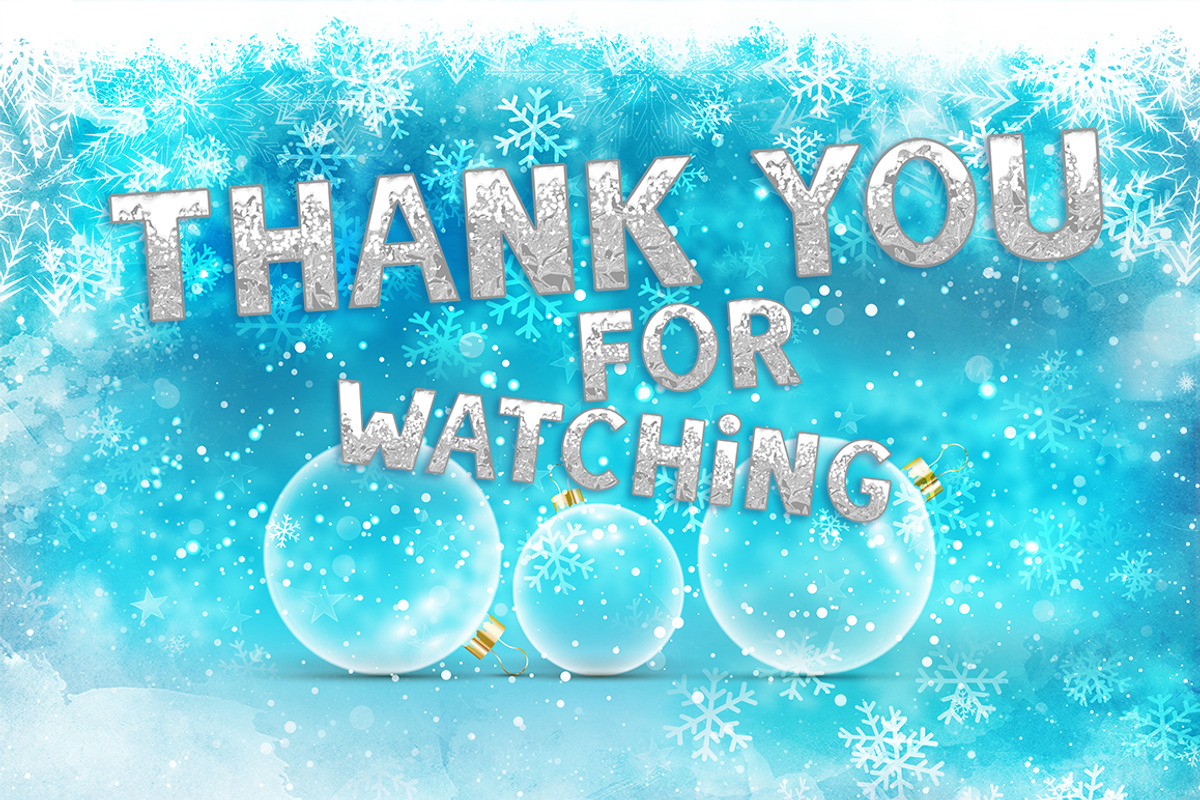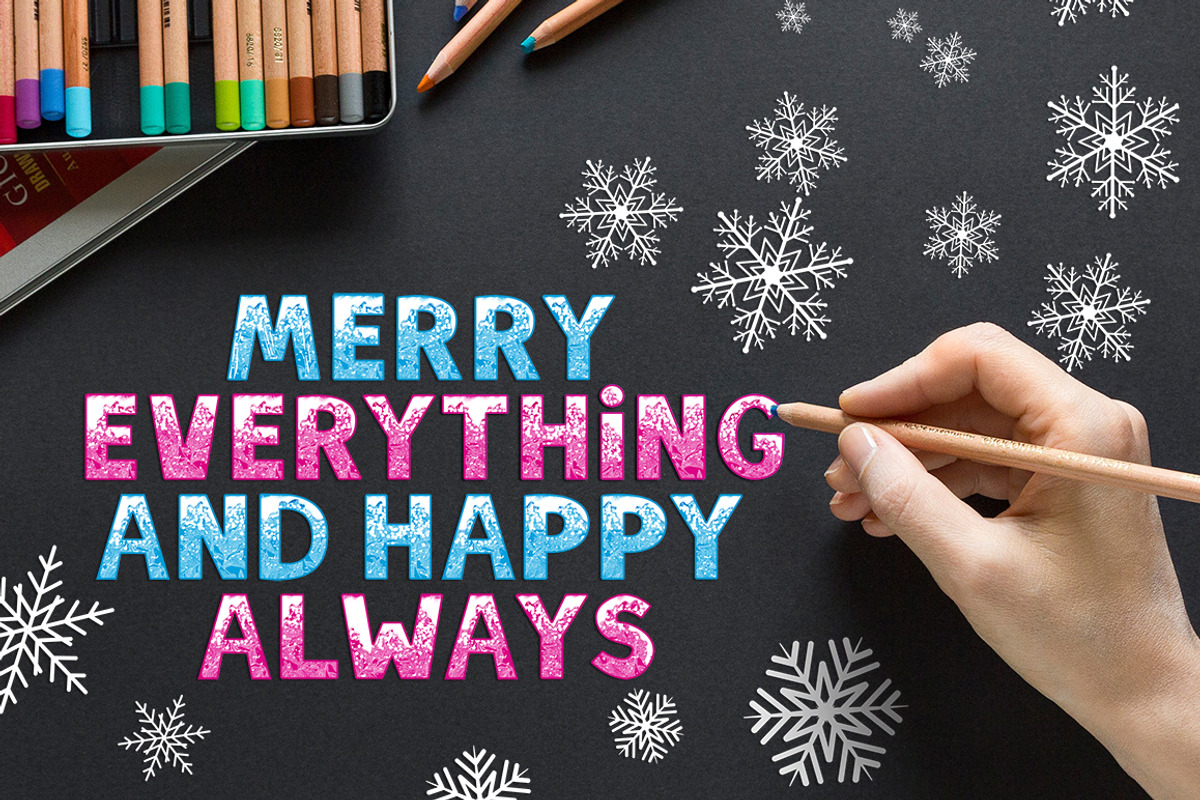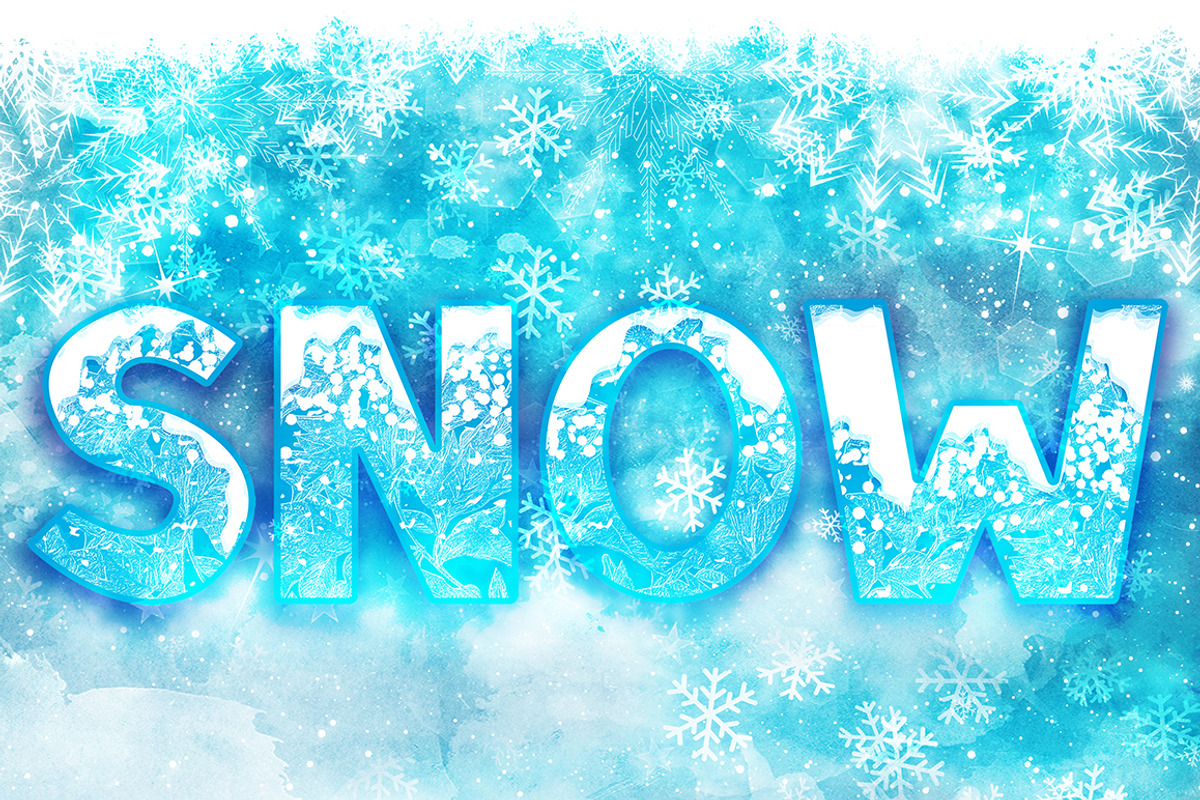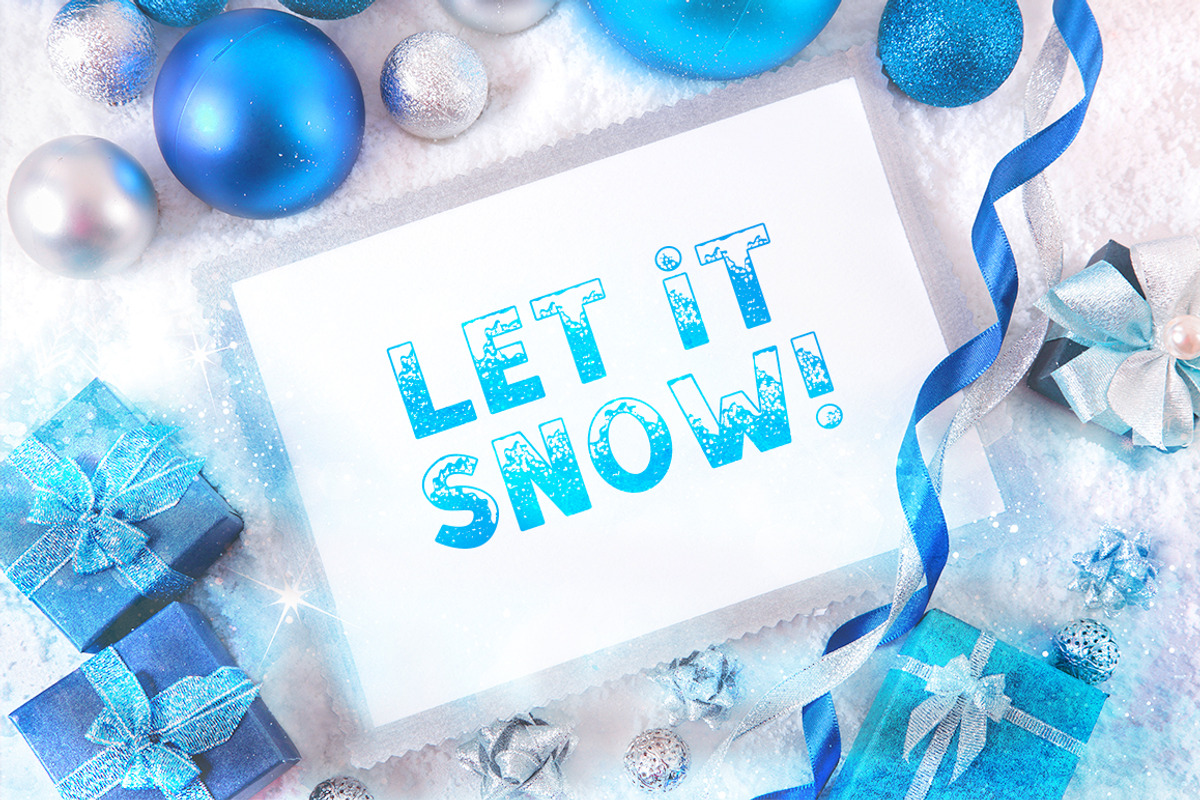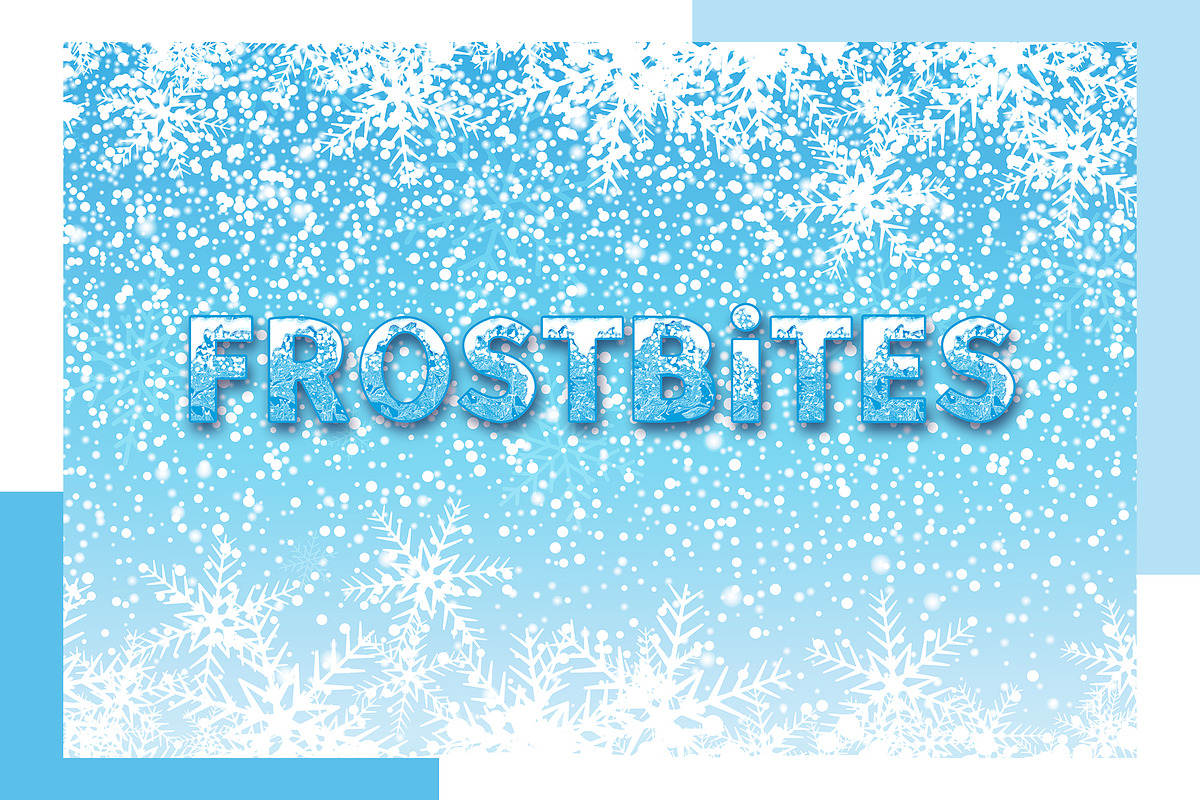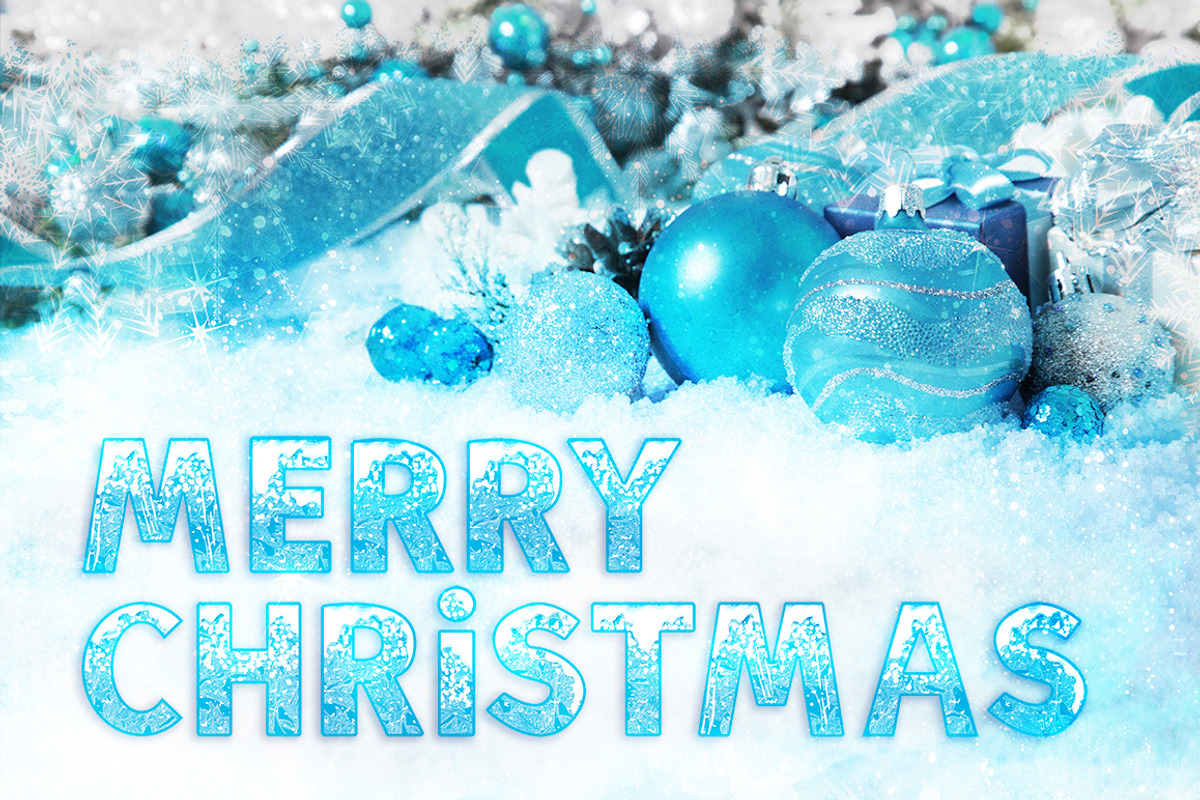
SNOW - Font Family for Christmas
I’m happy to introduce very-very snowy SNOW font family with amazing frosty textures. I hope you’ll like these cute fonts!
Wonderful SNOW fonts are perfect for your postcards, invitations, cards, backgrounds, posters, flyers, decorations, banners, web design and all that your imagination can create! :)
You can easily recolor it for example in silver! More about color fonts